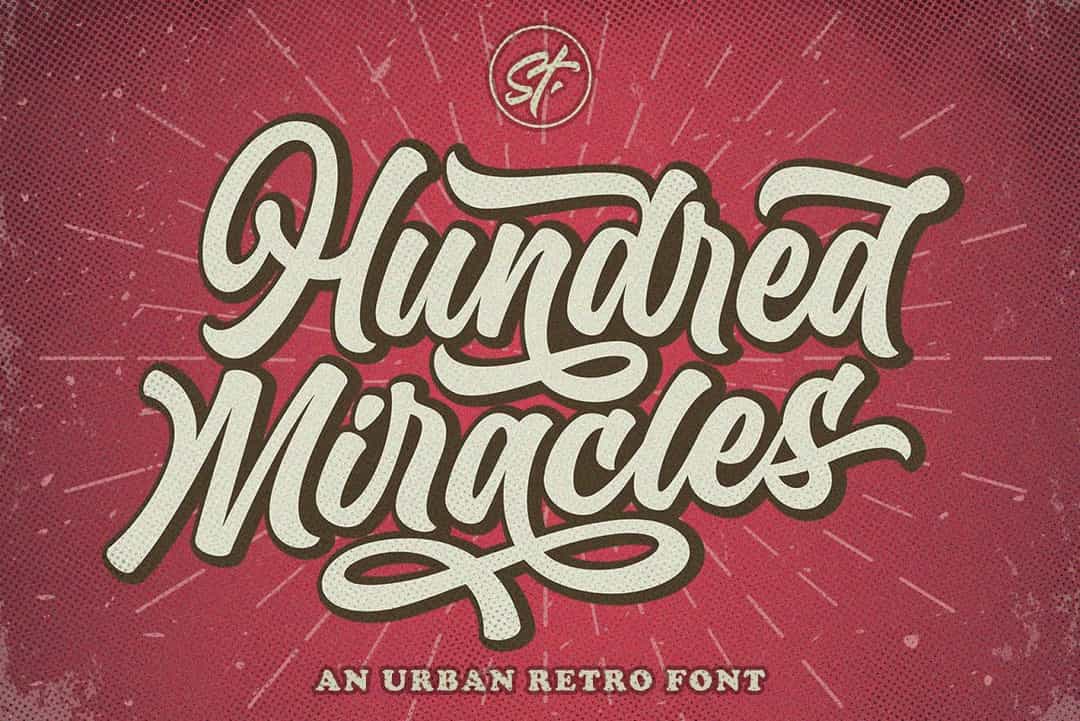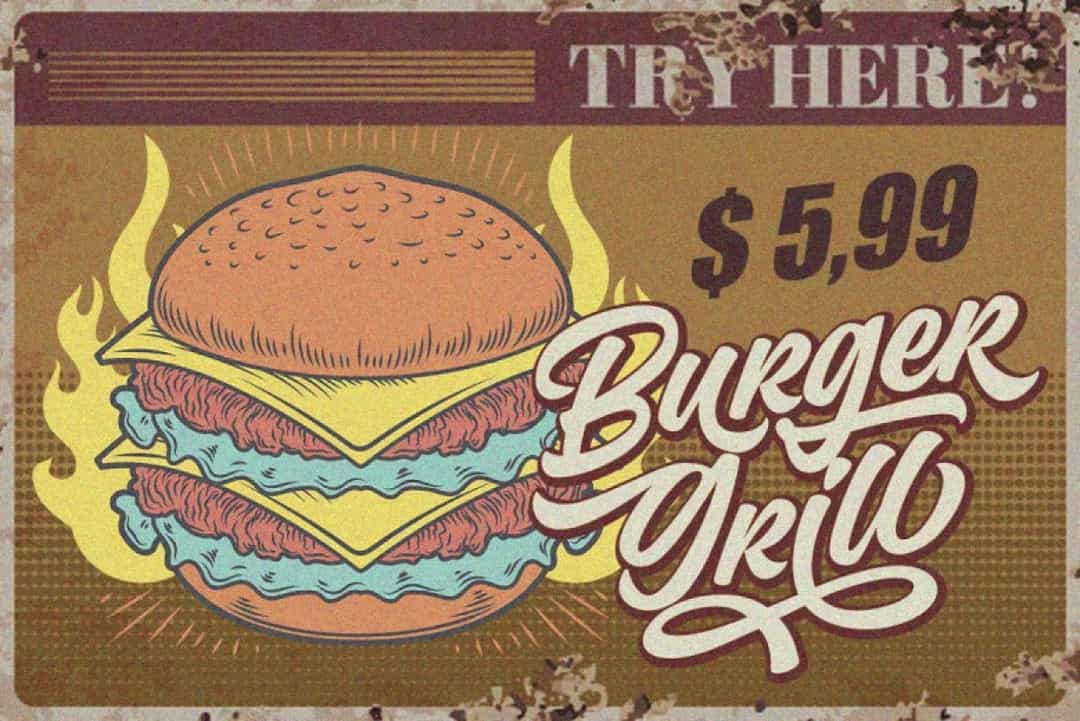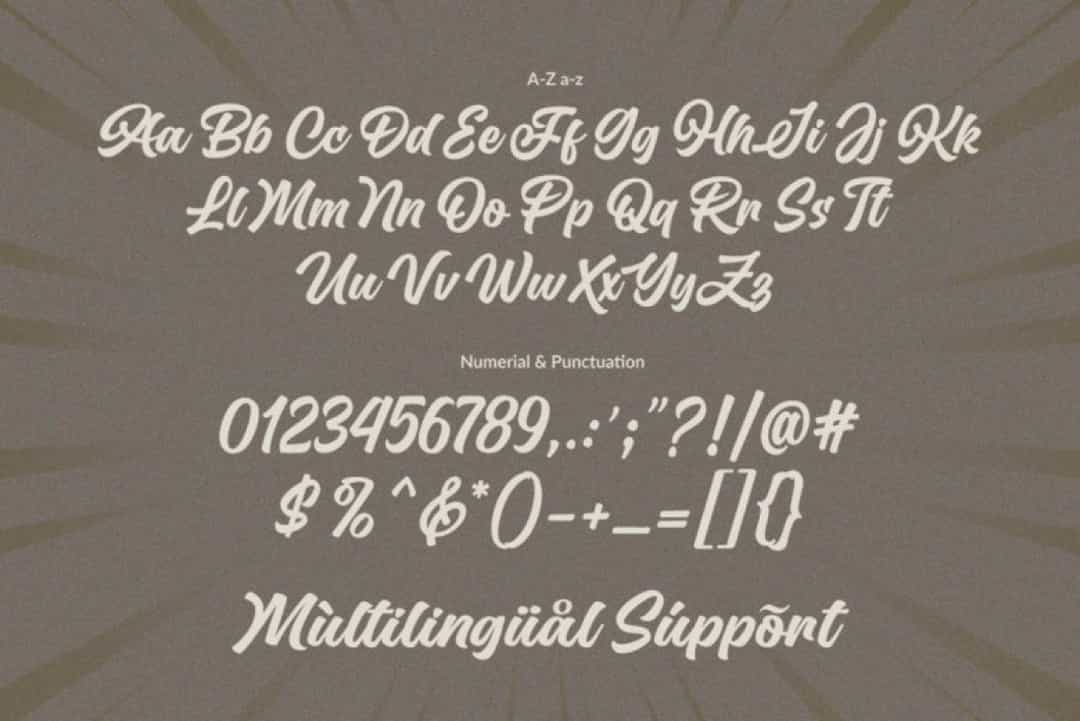
The Hundred Miracles Font is a retro urban script font designed as logotype-like lettering. This font can help you quickly and easily create letters or logotypes for your brand or customers, and could also be used for creating graphics such as badges, signs packaging headline titles T-shirt apparel poster or anything else graphic related.